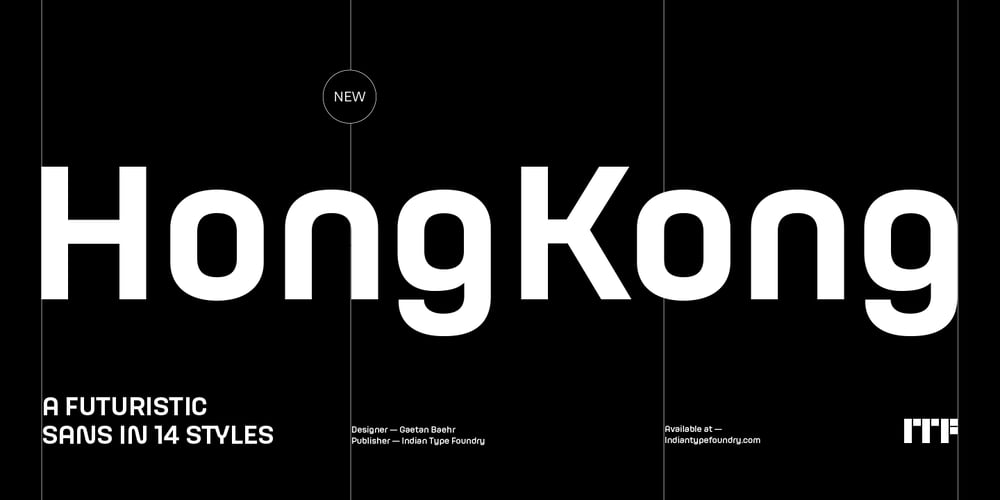
HongKong Font Family was designed by Gaetan Baehr and published by Indian Type Foundry. HongKong contains 14 styles and family package options. HongKong is a large, futuristic-style sans serif family. The letters have straight-sides – even ‘e’ and ‘o’, for example – and the whole typeface has a rather minimalistic design. Many typical sans serif features have been reduced somewhat. Quite a few lowercase letters are spurless. The ‘a’ still has a double-storey structure, but it is without the final spur on its bottom right. Other features of the fonts include a rounded-top ‘A’ and a single-story ‘g’. HongKong includes 14 fonts. There are seven different weights, each with a companion italic. The italics are obliques. Like the upright fonts, all of their letterforms are drawn with mono-linear strokes. Each font includes alternate, even more-rounded versions of the letters ‘M’, ‘N’, ‘V’, ‘W’, ‘X’, ‘Y’, ‘Z’, ‘v’, ‘w’, ‘x’, ‘y’, and ‘z’ … plus all of the diacritic characters based on these. HongKong’s lowercase letters have a very tall x-height, and their ascenders rise above caps just a little bit. The family’s lighter weights feel nice and loose in text, while the heavier weights are spaced more tightly. HongKong is a great font for the tech industry, but could also be put to good use to advertise music or art.